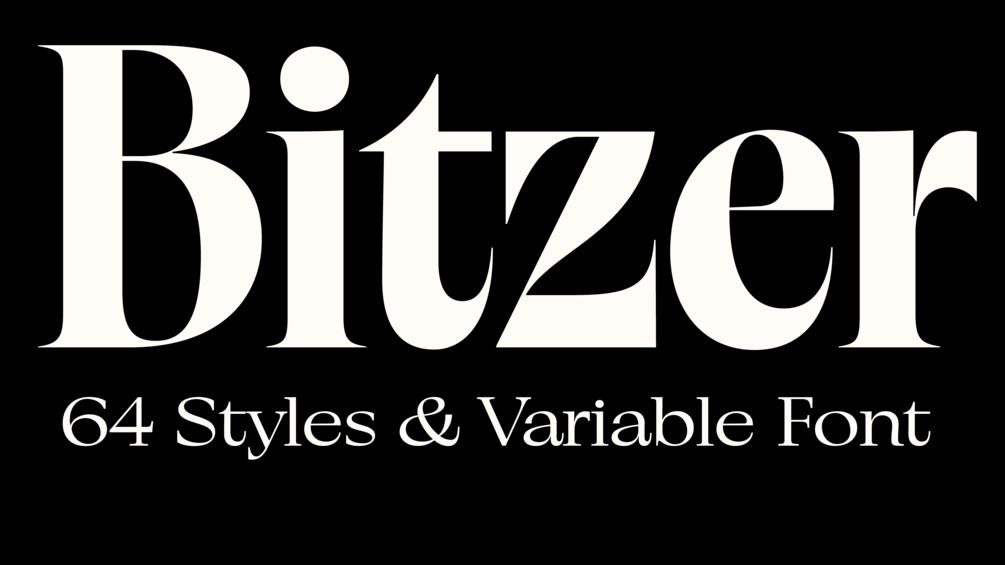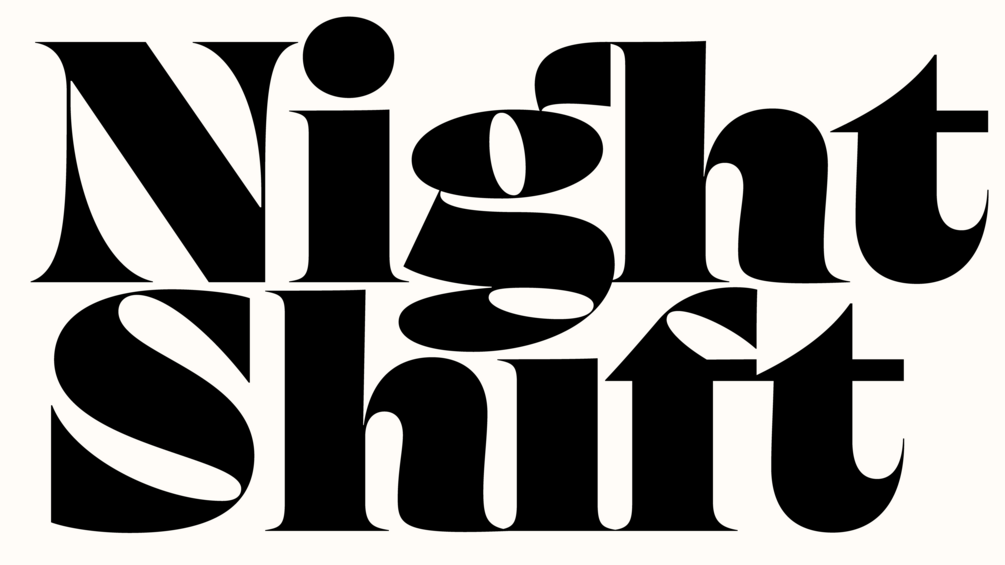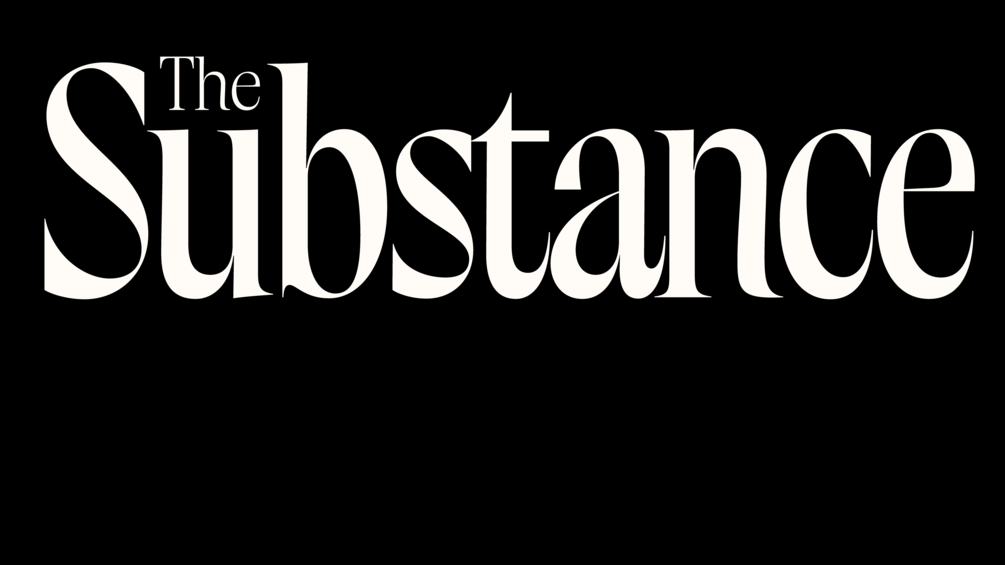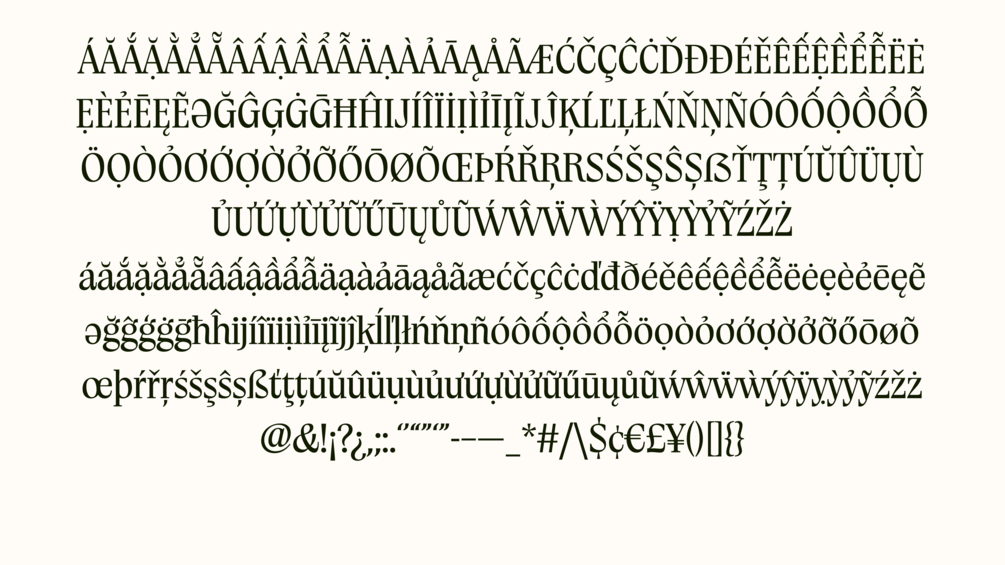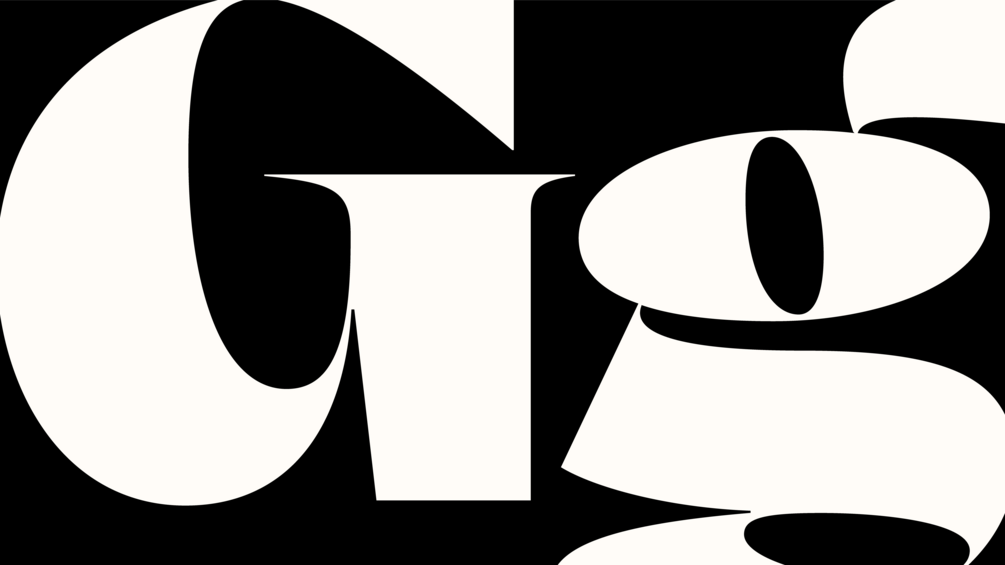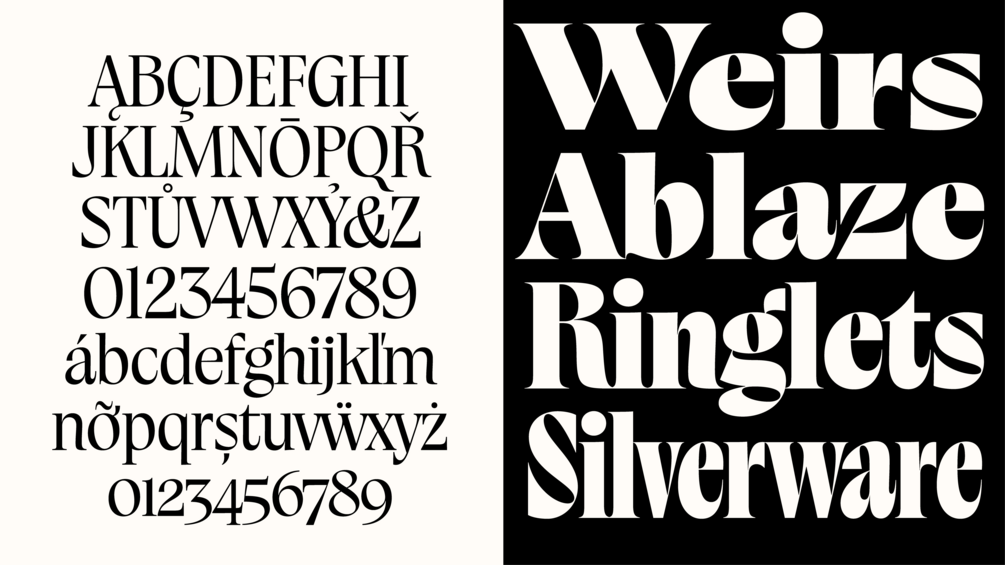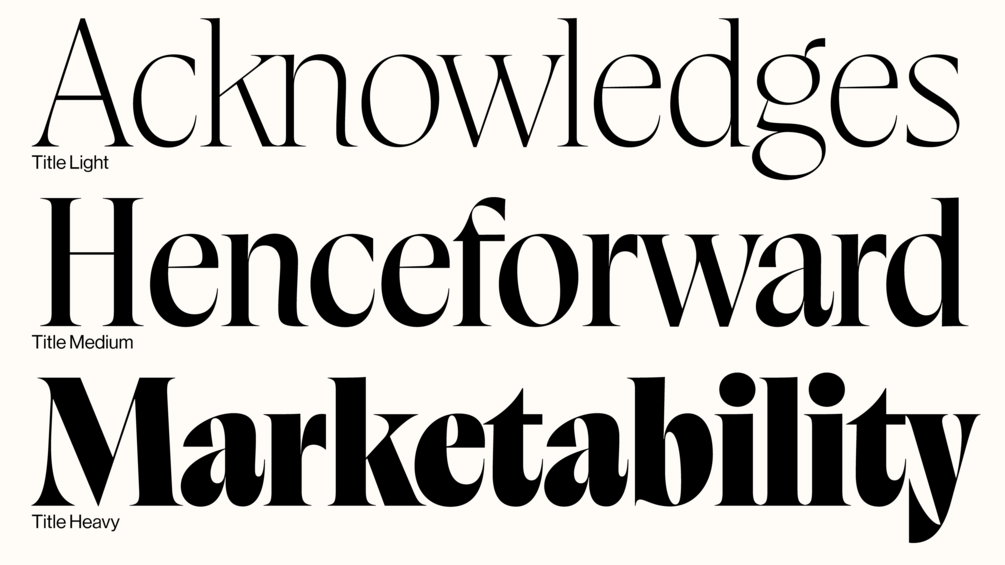
Bitzer
An experiment in testing boundaries, Bitzer selectively observes and breaks the established rules of Latin flat brush calligraphy. Bitzer speaks with a voice that is equal parts trustworthy and contemporary. Cutting edge without feeling overly irreverent. A visual balance of order and chaos… you get the idea.
Sharp twists of the pen give the letters a bottom-heavy quality, adding a sense of gravity into the visual texture, which becomes more pronounced in heavier weights.
Bitzer was designed for use in headlines, logotypes and editorial design. Its condensed width proportions aren’t exaggerated but allow for succinct delivery within a few lines of text. Its expanded width allows you to take up maximum space with only a few glyphs, ideal for titling and type illustration.
Now with three distinct optical sizes (Deck, Headline and Title), Bitzer maintains legibility at a wide range of sizes, from 14pt to infinity.
Extended Latin A
64 Styles